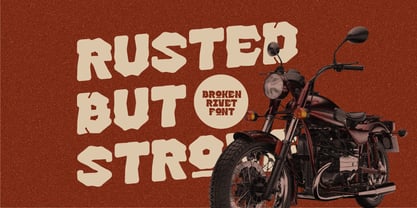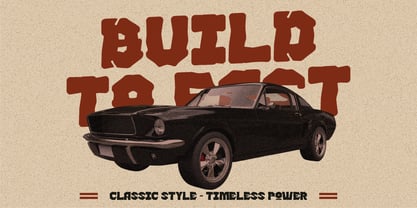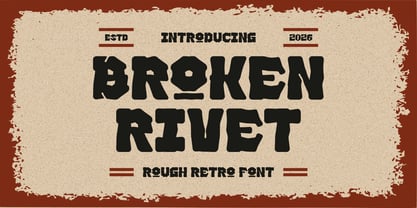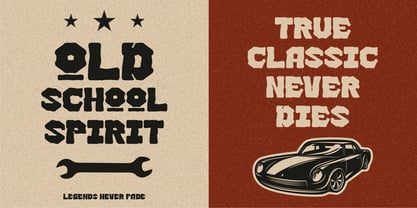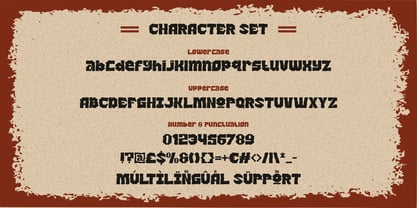
Broken Rivet
by Shanaf
The Broken Rivet Font Family was designed by Yesie Erma Yunita and published by Shanaf. Broken Rivet contains 1 styles. More about this family
Broken Rivet Rough Retro Font brings a bold industrial character inspired by classic workshops, old machinery, vintage garages, and rugged craftsmanship. The letterforms feature heavy proportions, blocky construction, and intentionally broken contours that create a worn mechanical appearance. Each character combines thick strokes with rough edges, chipped corners, and distressed details that strengthen its handcrafted attitude. The font maintains strong readability while delivering an authentic retro spirit. Its compact structure and sturdy shapes help headlines command attention across large formats. The design captures the atmosphere of classic automotive culture, restoration workshops, custom vehicle communities, and heritage-inspired businesses. Broken Rivet Rough Retro Font works exceptionally well for logo design, branding projects, advertising campaigns, product packaging, poster titles, book covers, magazine covers, signage, stickers, labels, merchandise tags, greeting cards, crafting projects, promotional materials, and film titles that require a rugged vintage presence.
The visual personality combines retro, industrial, masculine, rugged, classic, mechanical, and nostalgic influences into one cohesive typeface. The rough construction suggests durability, craftsmanship, and authentic character without sacrificing legibility. This makes the font highly effective for motorcycle businesses, automotive services, repair shops, restoration garages, custom workshops, spare part suppliers, tool brands, outdoor products, metalworking businesses, camping products, adventure gear, beverage brands, food packaging, restaurant branding, burger shops, barbecue businesses, coffee products, and heritage-themed consumer goods. Beyond transportation industries, the font also fits entertainment projects, vintage events, retro festivals, historical exhibitions, gaming titles, music promotions, and collectible product packaging. Large headlines, promotional banners, advertising graphics, and branding systems benefit from its commanding visual weight. The distressed details create instant personality, helping businesses communicate tradition, strength, and experience through memorable typography that stands confidently across both print and digital media.
Designers: Yesie Erma Yunita
Foundry: Shanaf